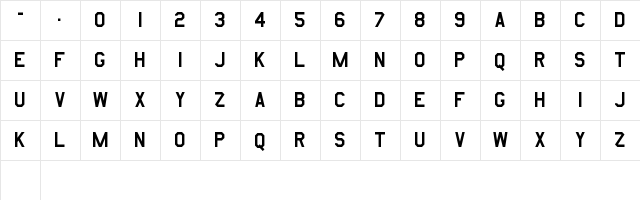
AmarilloUSAF Regular
Foundry: TLai Enterprises Media Design
Designer: Tom C. Lai
Design Context for AmarilloUSAF
AmarilloUSAF is a composed and adaptable typeface that performs quietly and consistently across a wide range of design contexts.